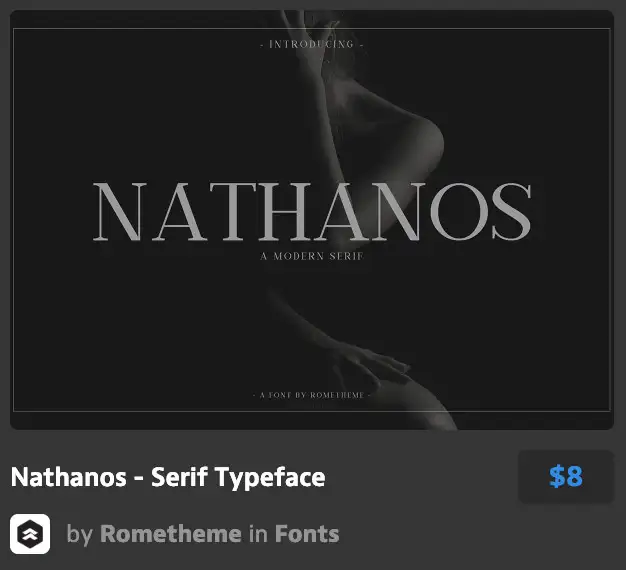
Nathanos – Serif Typeface
Introducing Nathanos, a sophisticated serif typeface designed for elegance and readability. Perfect for both print and digital projects, this font embodies a classic style while maintaining modern versatility.
- Easy to read at various sizes
Whether you are working on a branding project, editorial design, or any creative endeavor, Nathanos will add a touch of refinement to your work.